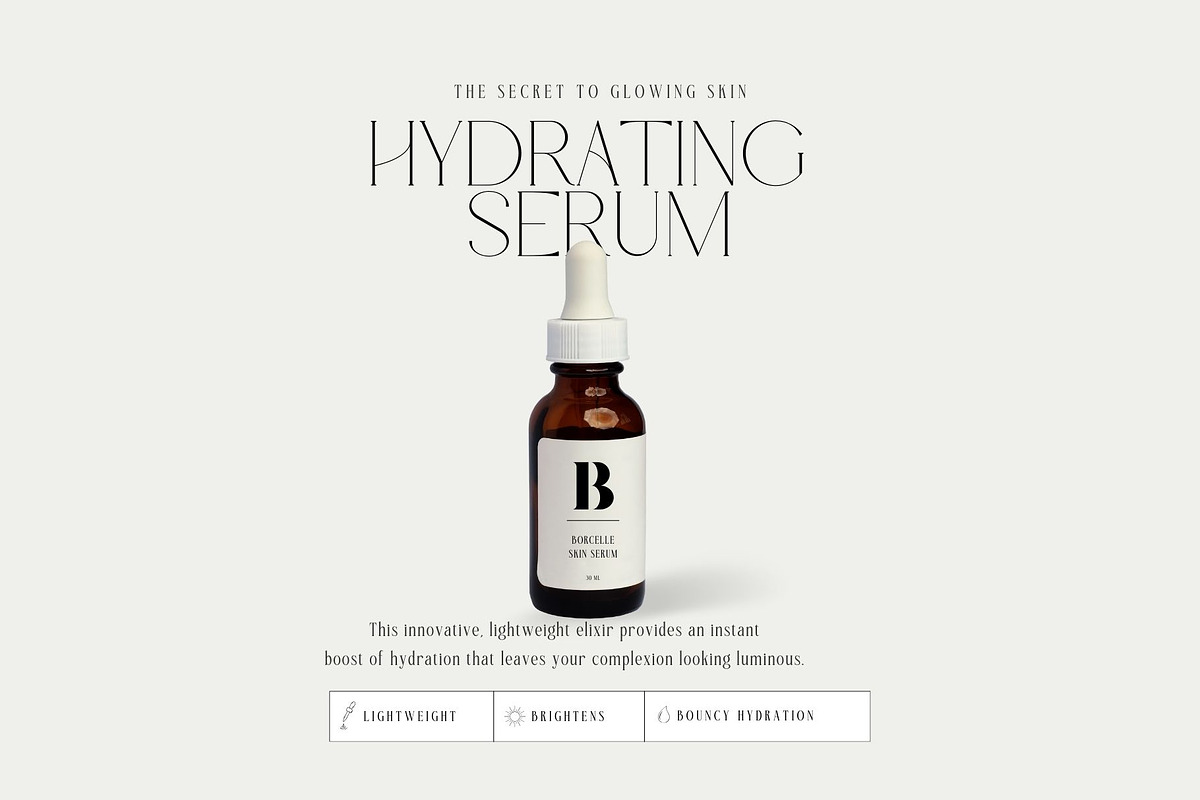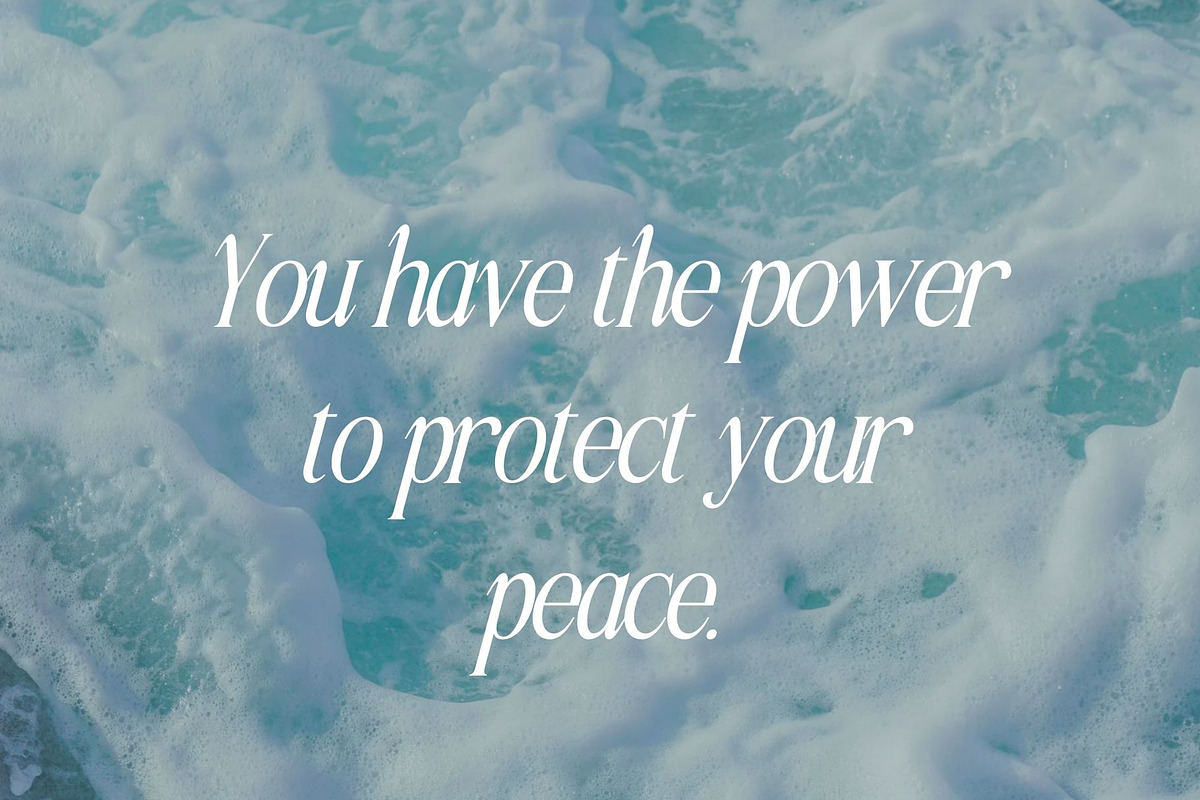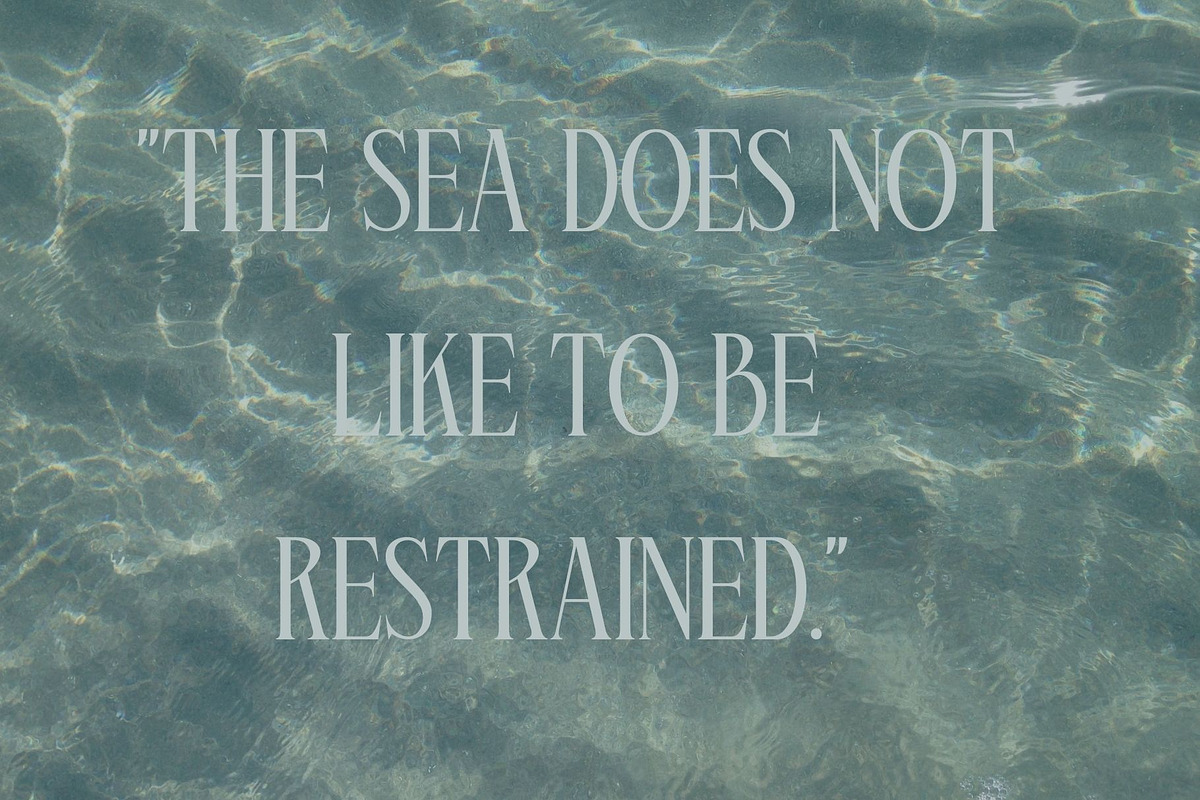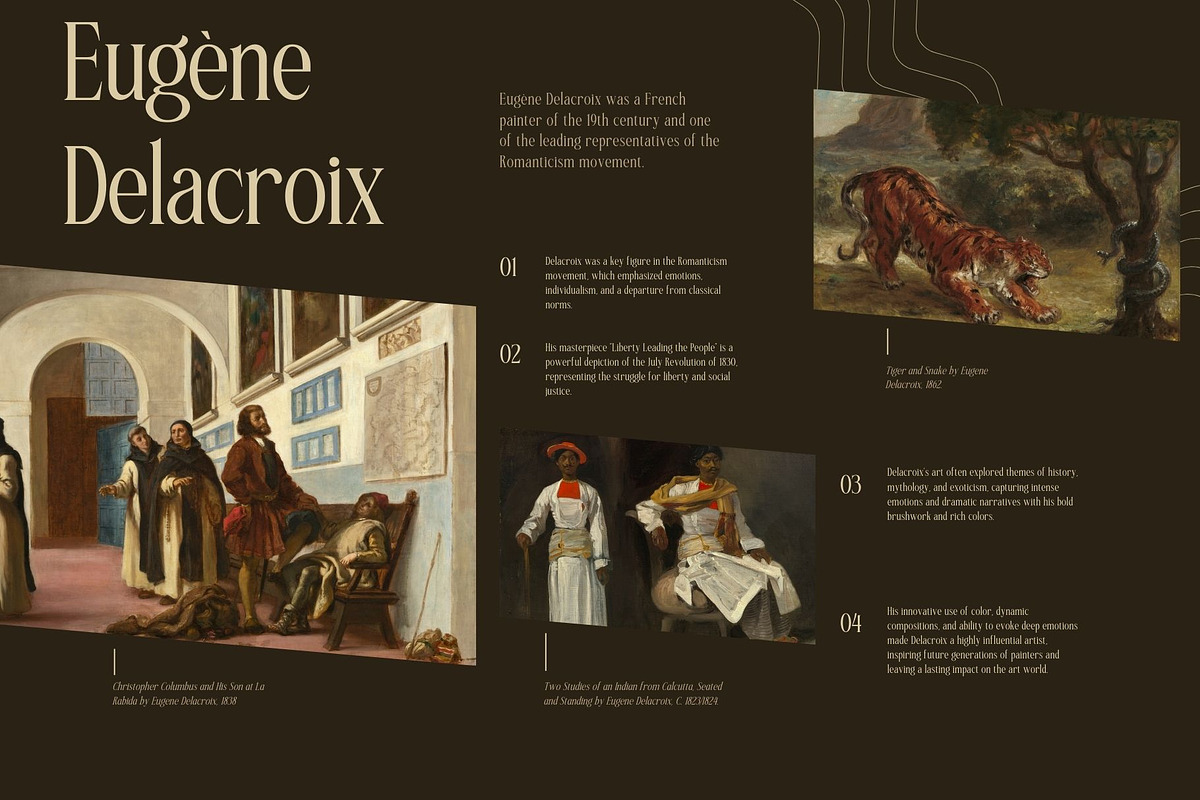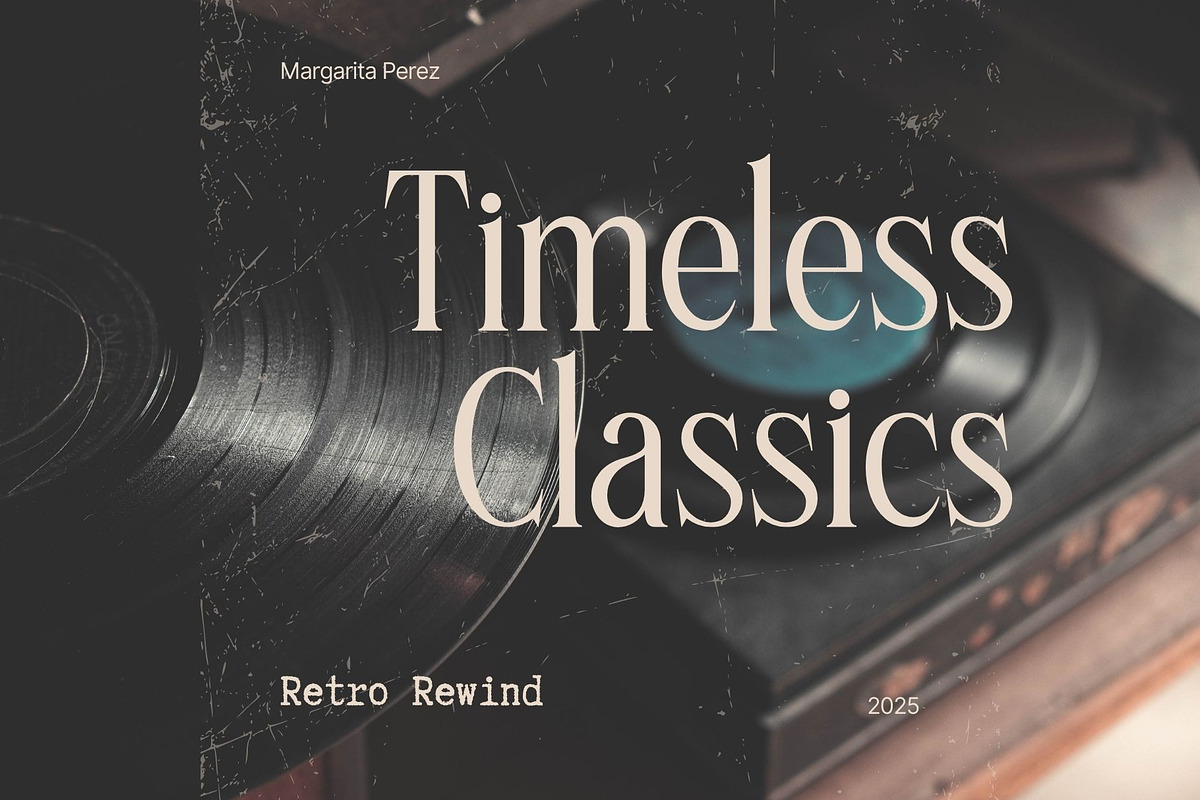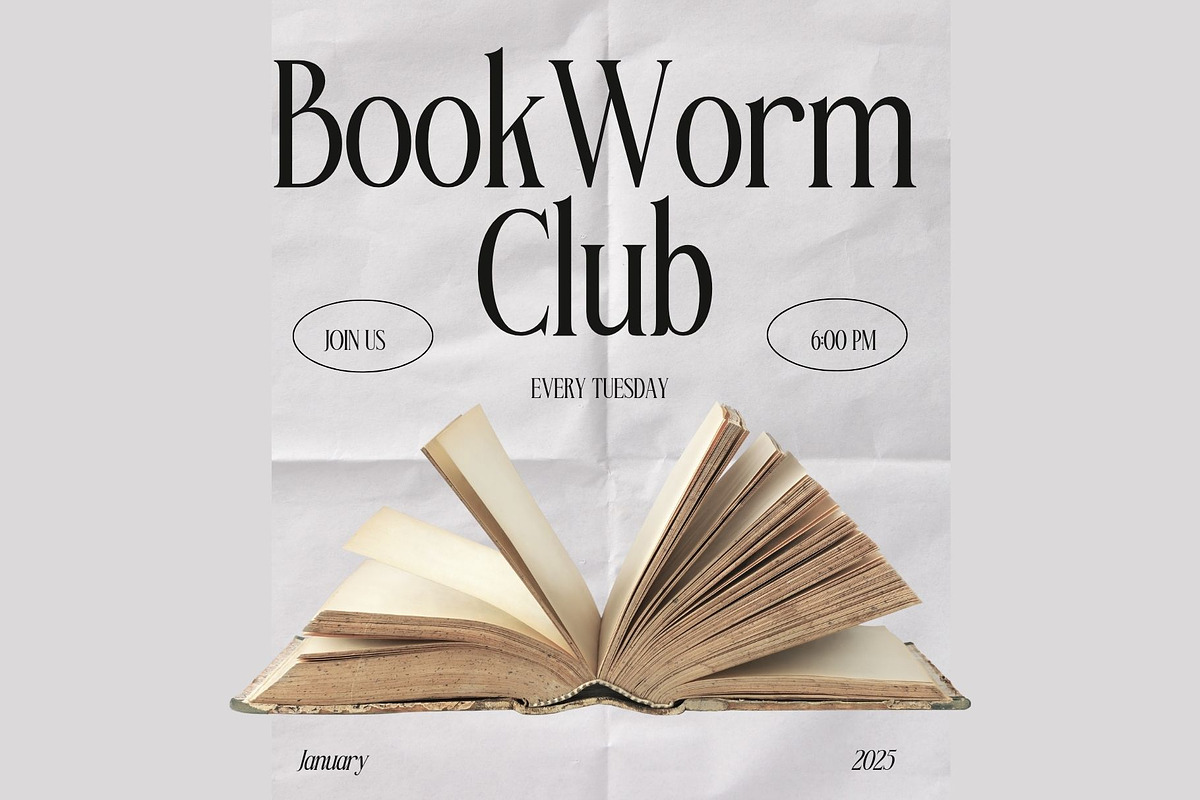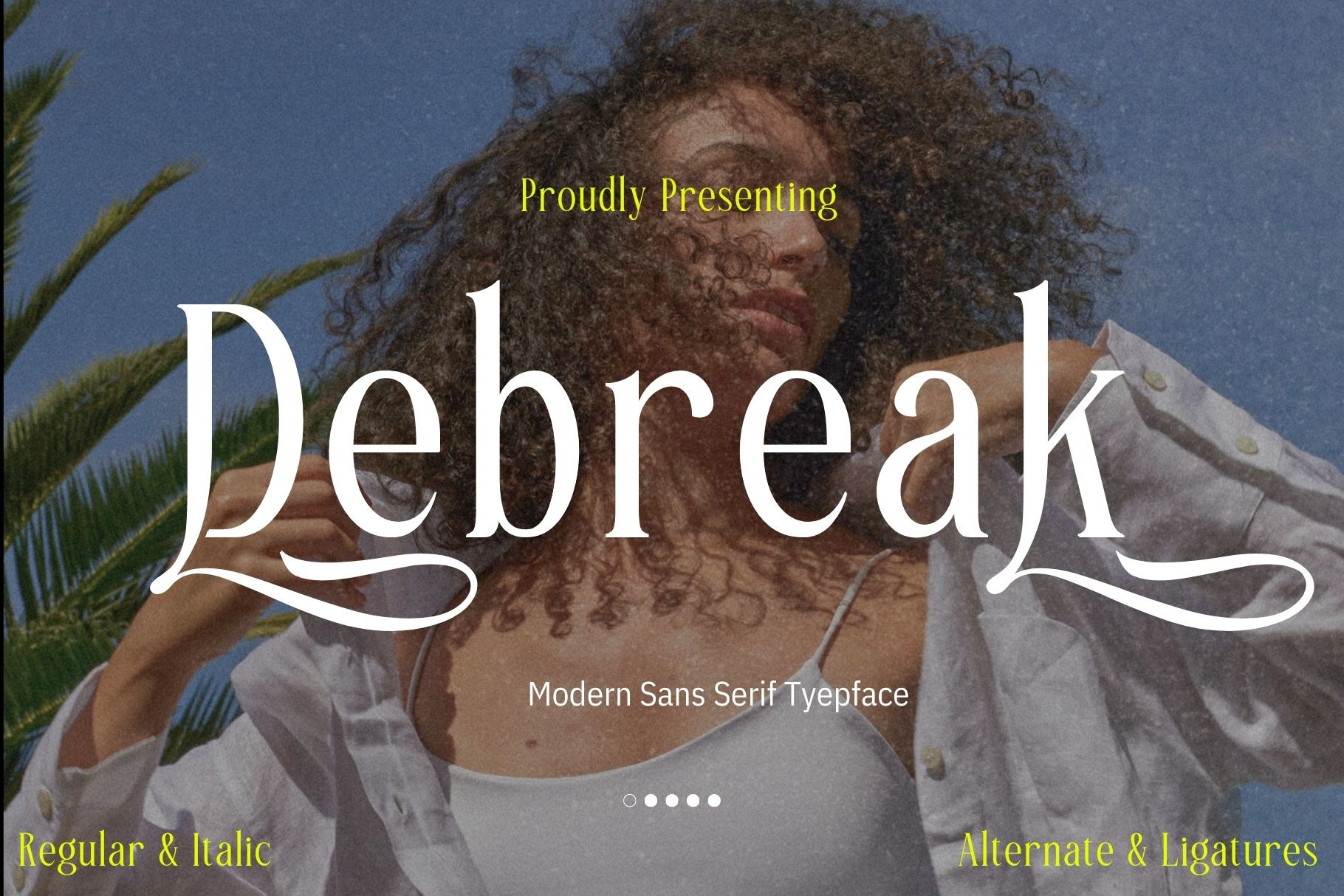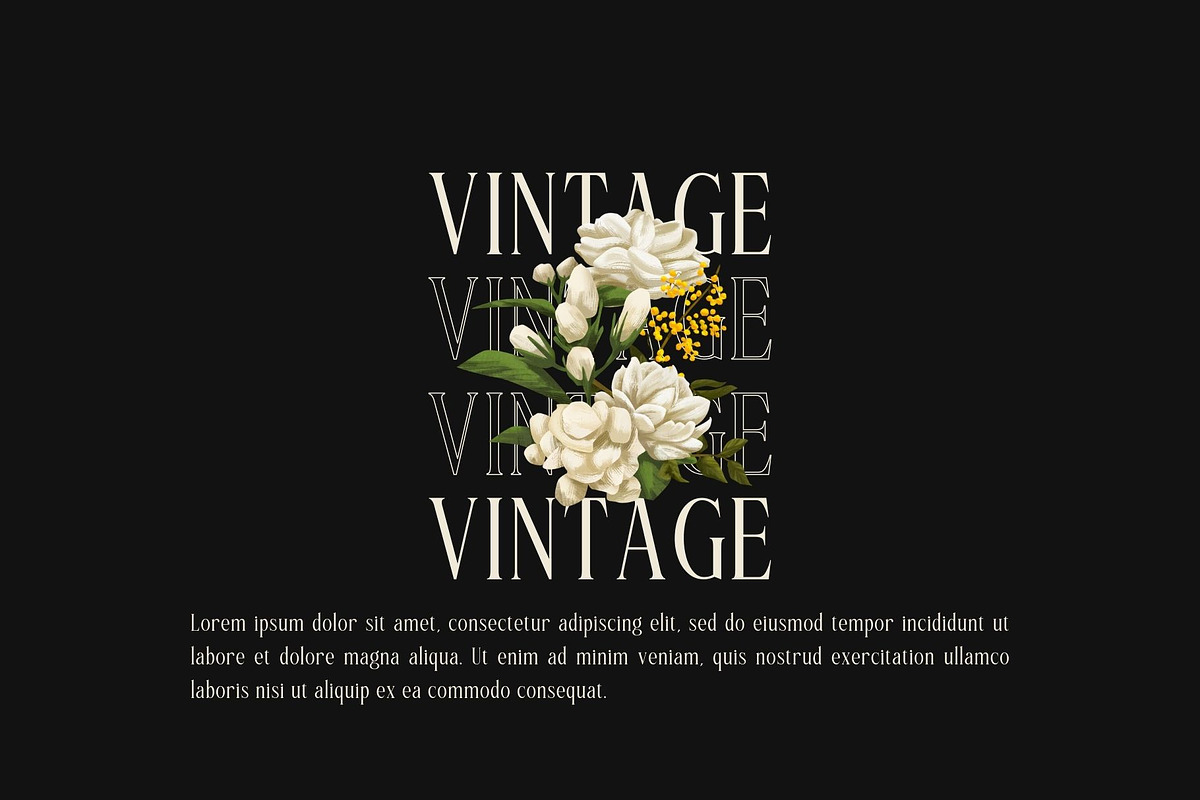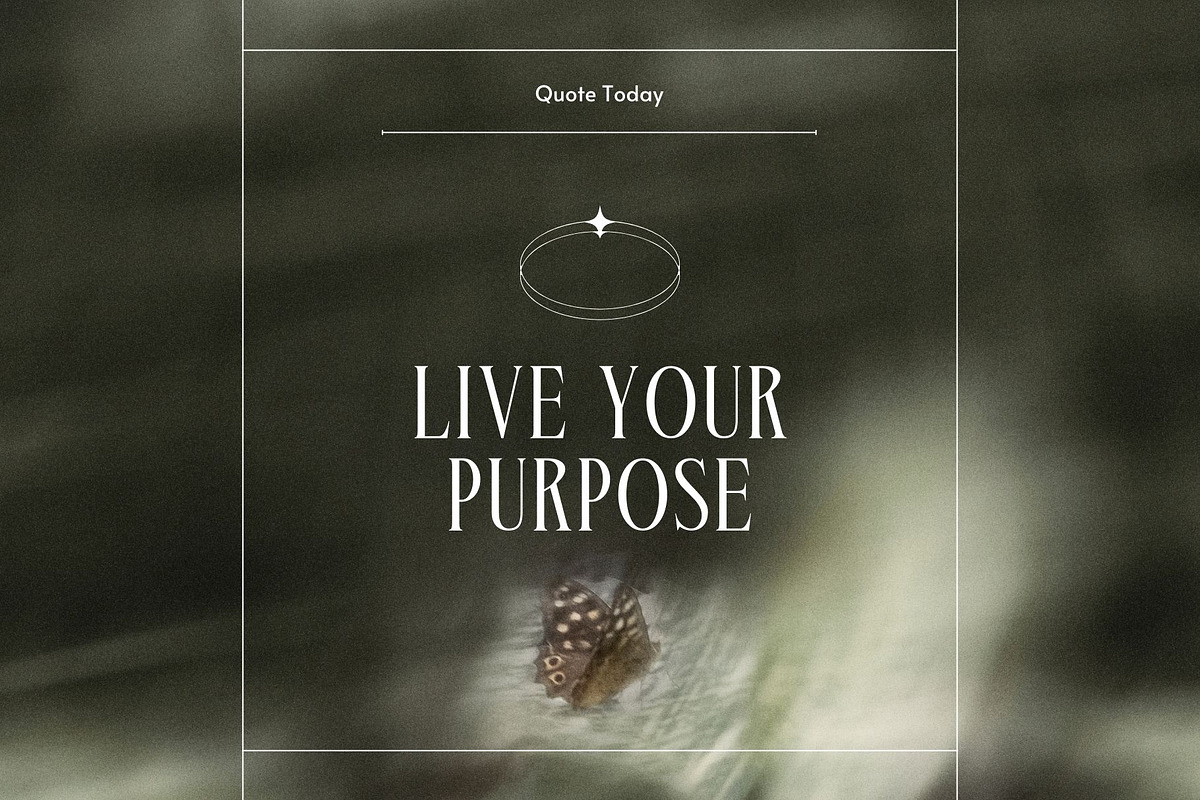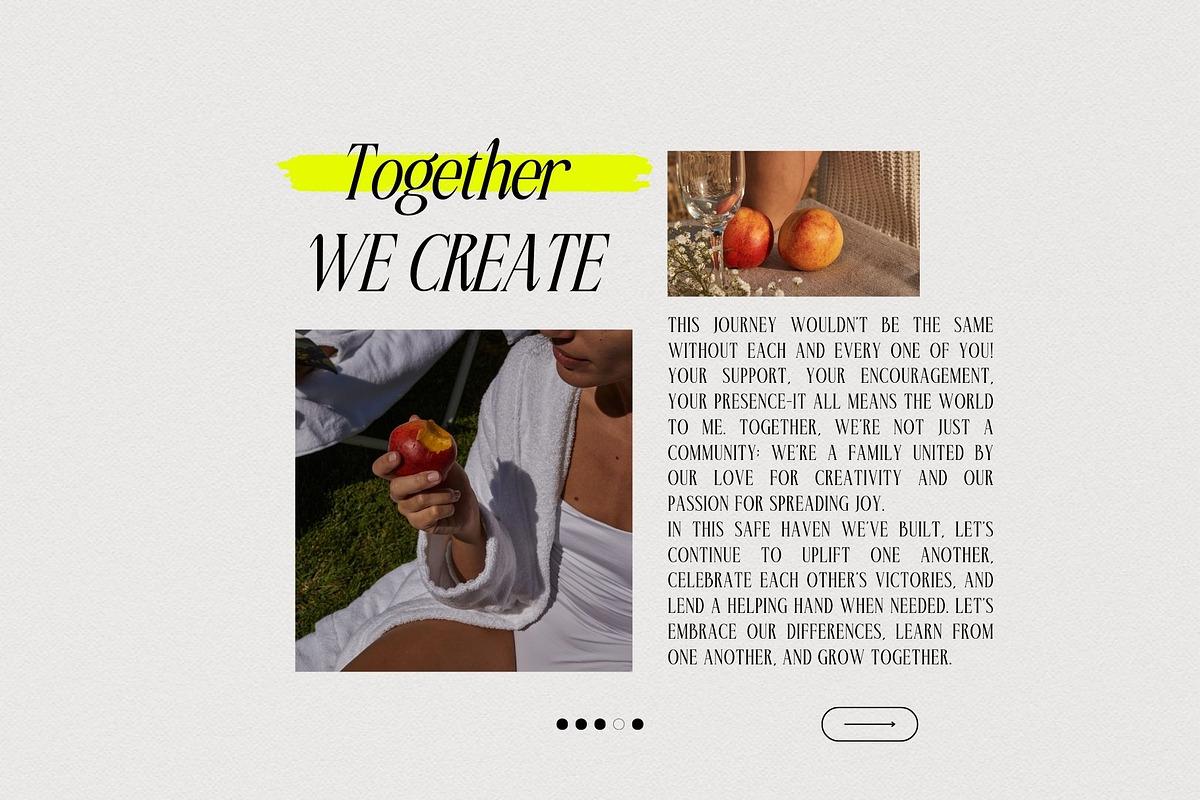
Debreak-Modern Sans Serif Typeface
A perfect blend of classic elegance and modern design, Debreak Typeface is a versatile and sophisticated serif font designed to captivate. Whether you’re working on high-end branding, editorial layouts, or creative projects that demand a luxurious touch, Brosena brings unparalleled elegance to the table